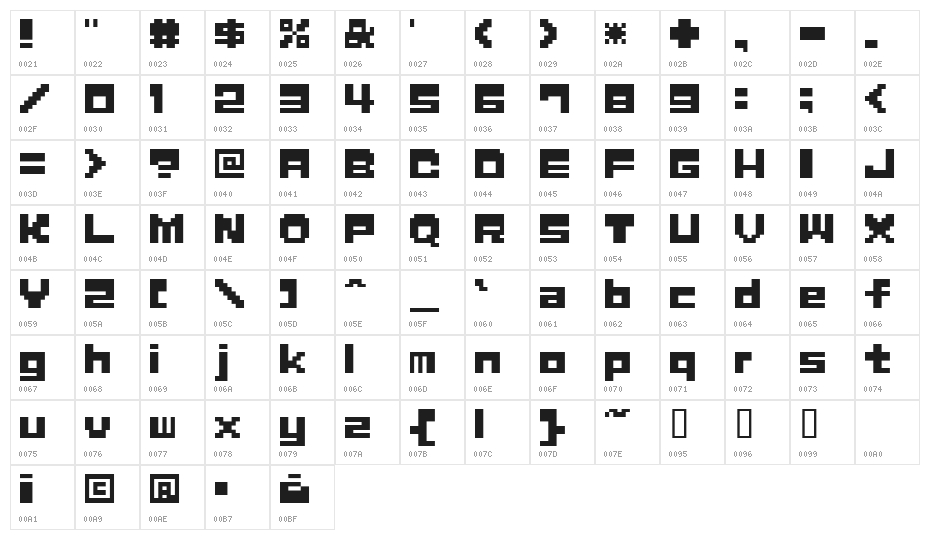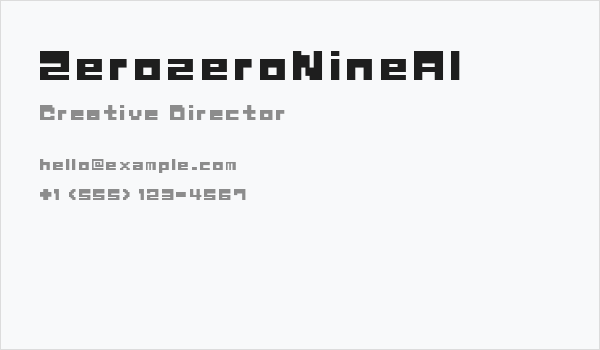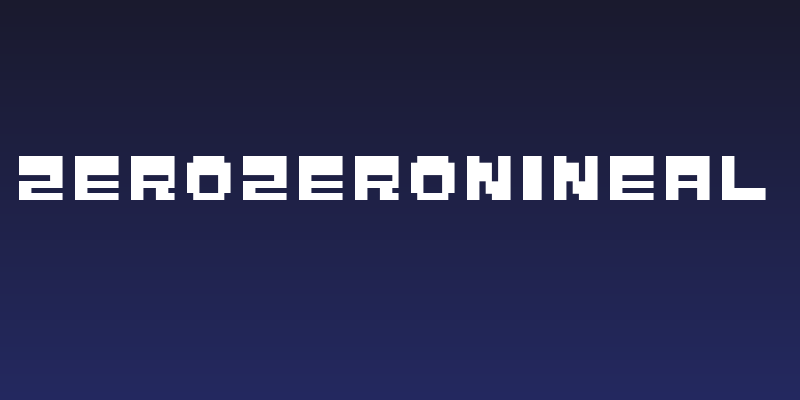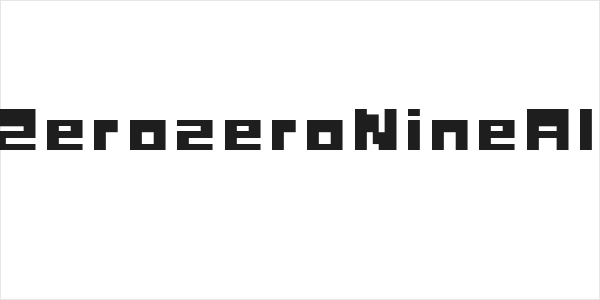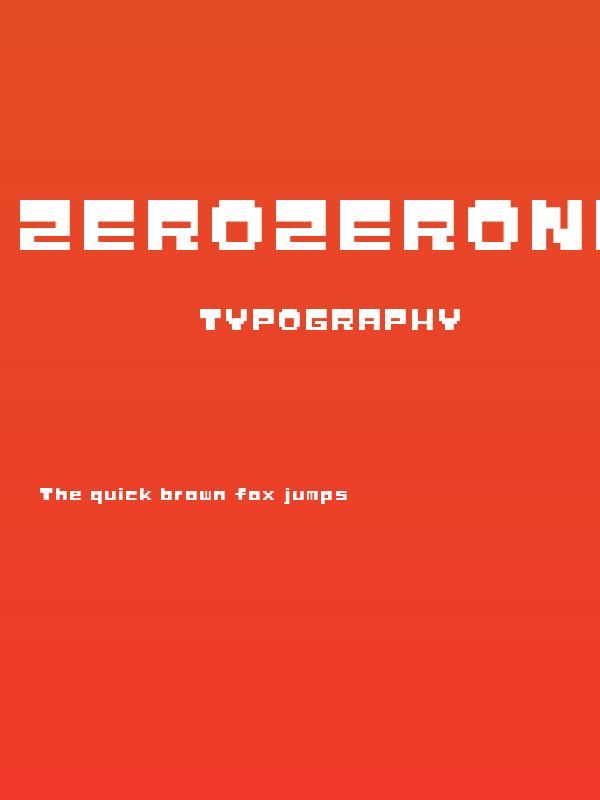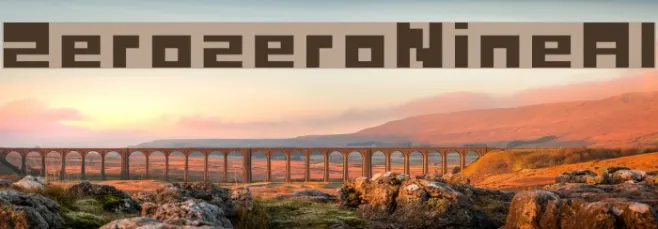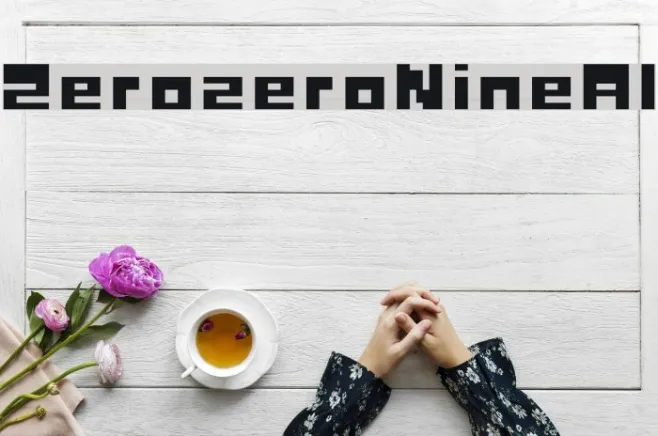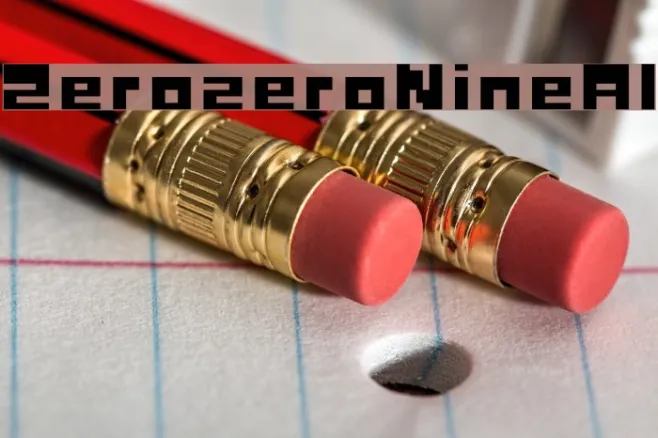
ZerozeroNineAl Font
ZerozeroNineAl Description
This font features a bold, pixelated design reminiscent of early digital and arcade aesthetics. Each character is constructed with a blocky, grid-like structure, giving it a distinctly retro and digital feel. The uppercase and lowercase letters maintain a consistent height, enhancing the uniformity and geometric appeal. The numerals and special characters follow the same design principles, ensuring a cohesive look across all elements. The font's simplicity and clarity make it highly legible, even at smaller sizes, while its unique style adds a playful and nostalgic touch to any project.